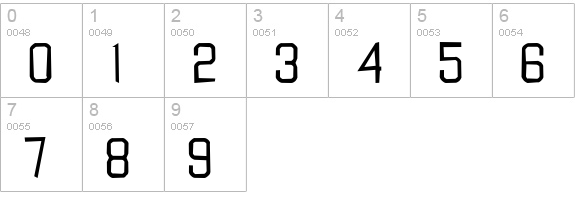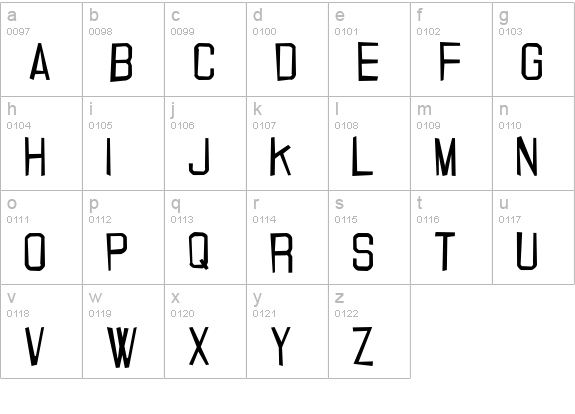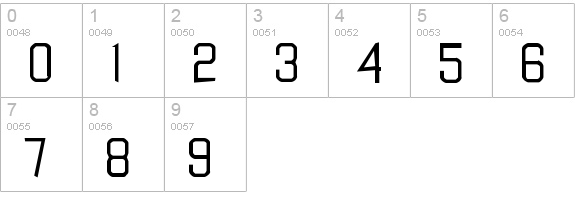
20.000 dollar bail Font Details
Introducing the exquisite and elegant 20.000 Dollar Bail font, a stunning addition to any design project. This font exudes sophistication and luxury, making it perfect for high-end branding, invitations, and more. With its sleek lines and classic appeal, 20.000 Dollar Bail font is sure to elevate your designs to new heights. And the best part? This premium font is available to download for free at FontsMarket.com! Yes, you read that right - you can access this luxurious font without spending a dime. Don't miss out on the opportunity to enhance your projects with the 20.000 Dollar Bail font, now freely available for you to enjoy. Download it today and experience the beauty and elegance it brings to your creative endeavors.